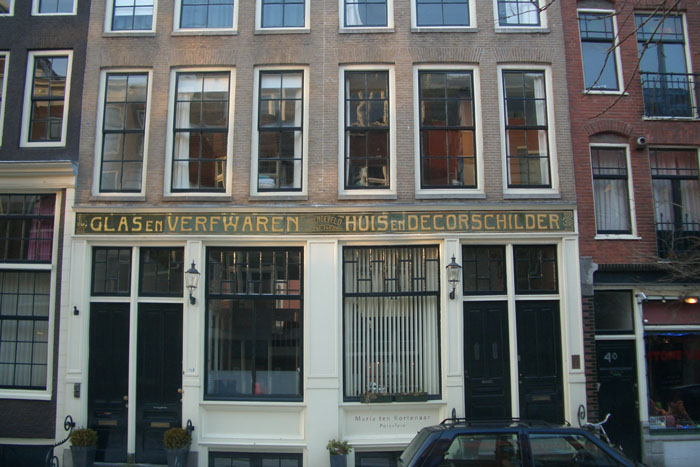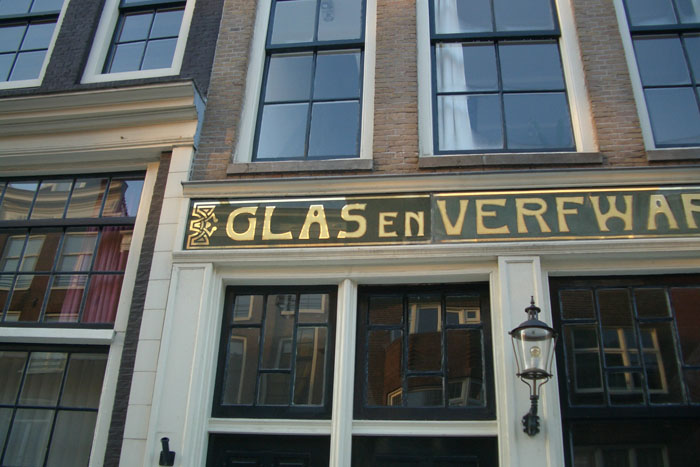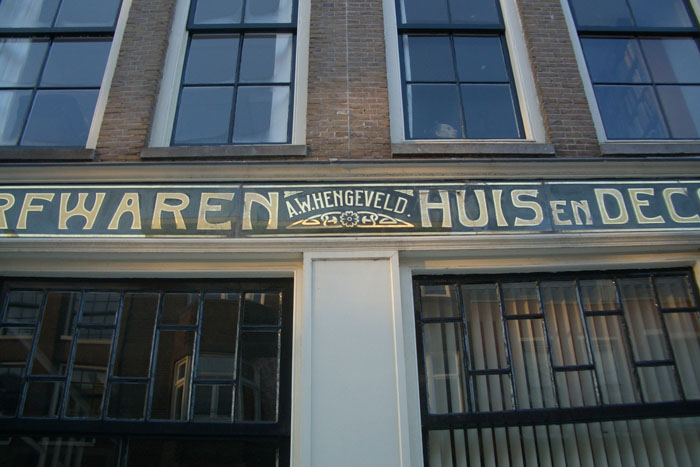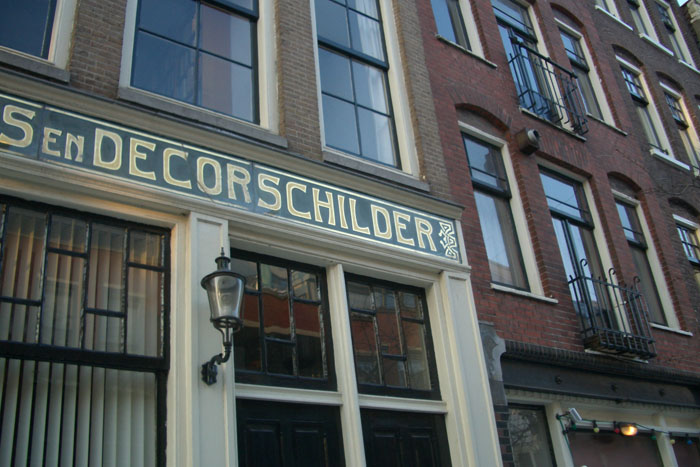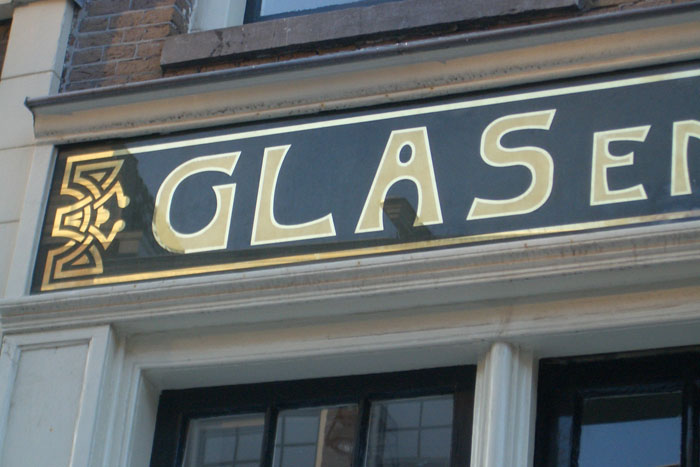
I was at a firm this morning and saw to my suprise a glass facade which I never seen before.
It was a sign for a glass and paint shop that previously occupied that adress.
Looking at the fontstyle it must have been made during 1920-1930.
I showe my father the photo's I quickly mde and he remembers the facade very well and it being lost over time.
Now we now that it was probably blocked by a new company or house owner who used to live there after circa 1960.
Thankfully the new owners restaurated the building and discovered this piece of Dutch treasure and thought it to be of such high quality that it had to be shown again.
Dutch treasure unveiled!
Now ya see there....
The burnished outline on the letters fade in and out with the bright and dark reflections, but the matte centers show from any angle.
Think about it!
Beautiful and effective sign on a cool building! Wouldn't you die for one of those lamps!
I love seeing international pieces!